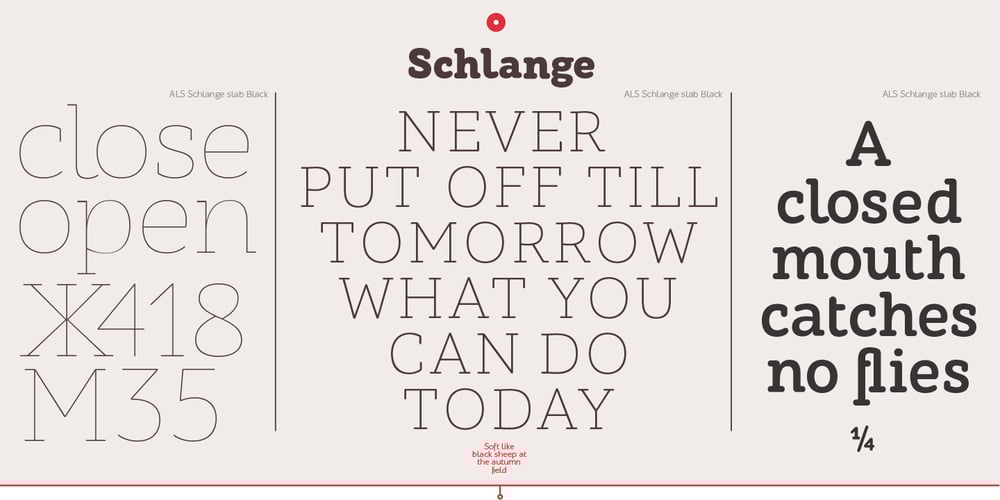
ALS Schlange Sans Font Family was designed by Olga Umpeleva and published by Art. Lebedev Studio. ALS Schlange Sans contains 5 styles and family package options. Schlange is a rich typeface with rounded terminals. The family includes five sans serifs and five slab serifs in weights from ultra liight to bold. Schlange’s personality is determined by an open aperture and quite large lower case characters in comparison with the upper case set. Schlange’s personality is open and friendly, giving a text it’s used for a soft, warm appeal. Schlange will work well as a display type (think titles, short magazine call-outs, ad banners, and such), but it’s not a good choice for extensive bodies of academic text. Available in numerous weights, the typeface provides rich opportunities for mixing and matching and is great for typographic compositions. These qualities make Schlange a dream type for a packaging designer. It will feel at home in design for cosmetics or sweets, postcards, children’s books and menus.